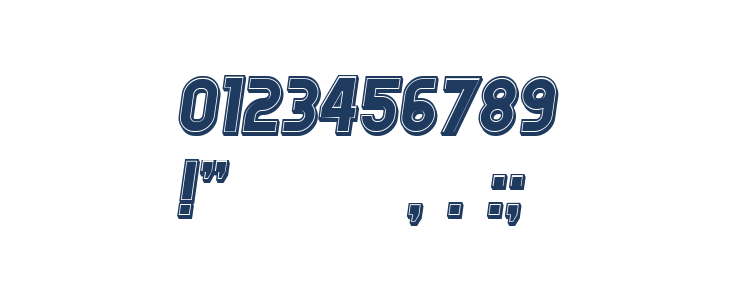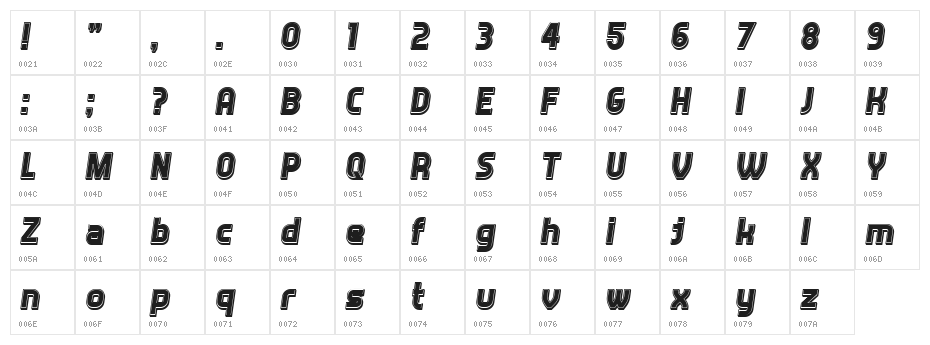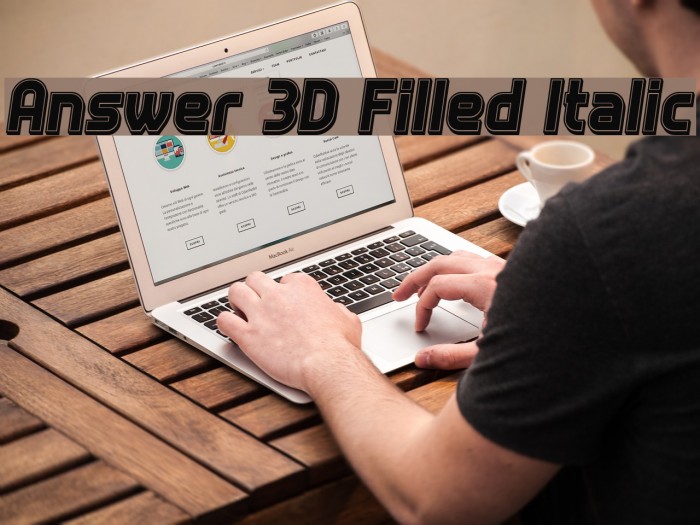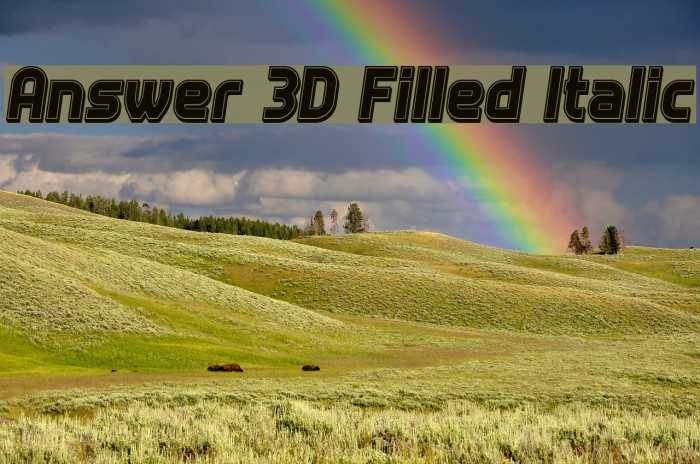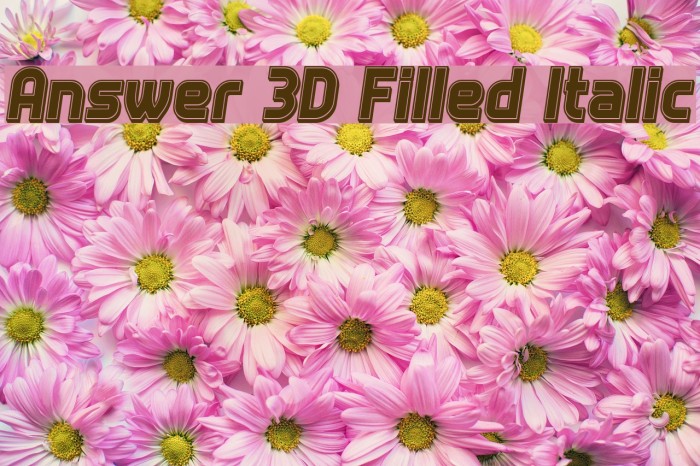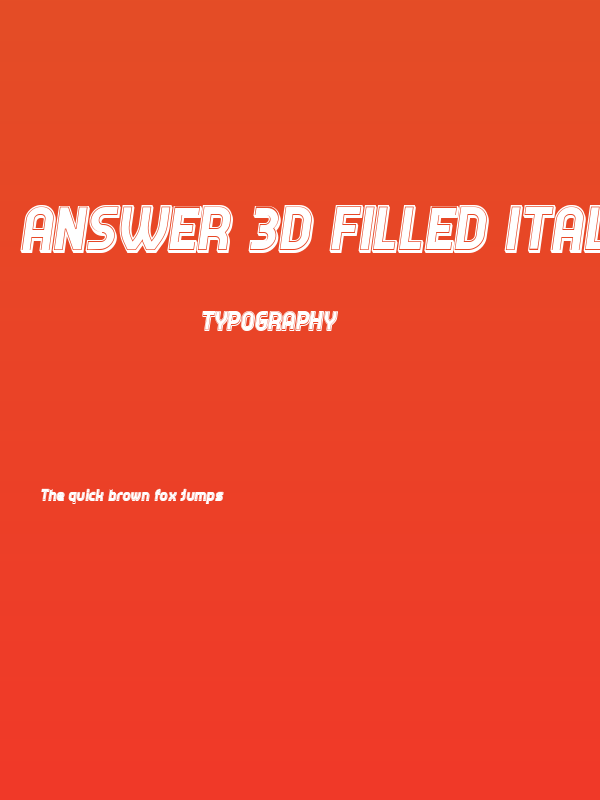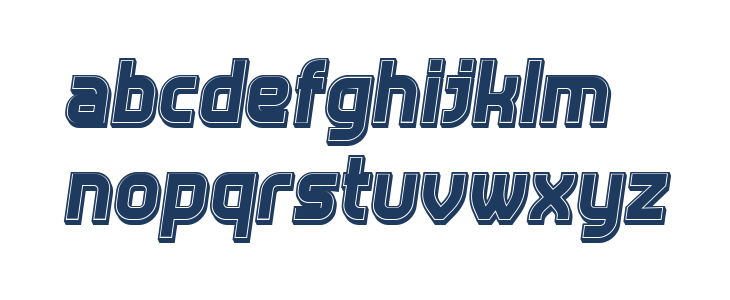
Answer 3D Filled Italic Font
Answer 3D Filled Italic Description
This font features a bold, three-dimensional filled style with an italic slant, giving it a dynamic and modern appearance. The characters are outlined with a thick black border, enhancing the 3D effect and making each letter stand out prominently. The uppercase and lowercase letters maintain a consistent style, with rounded edges and a slight forward tilt, adding to the sense of motion. The numerals and special characters follow the same design principles, ensuring uniformity across all glyphs. This font is visually striking and commands attention, making it suitable for impactful designs.
| Proposed Projects | Ideal for posters, headlines, logos, and any design requiring a bold, eye-catching typeface. |